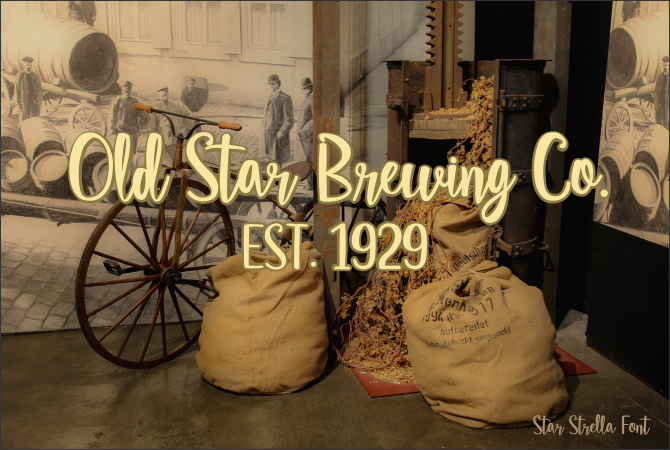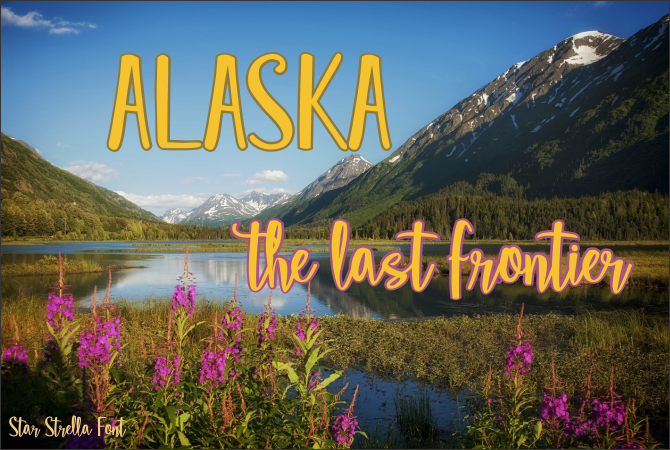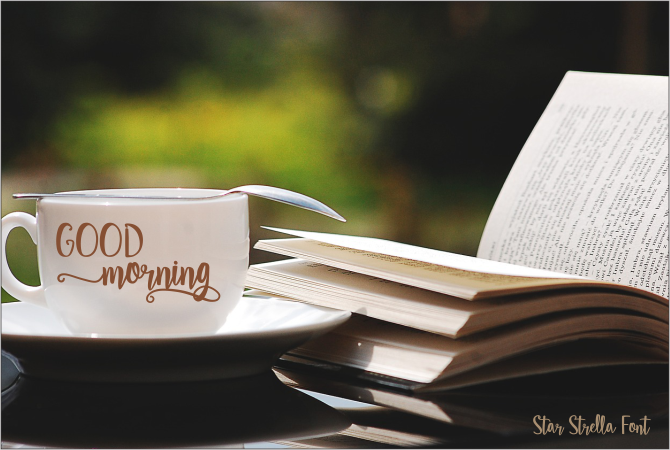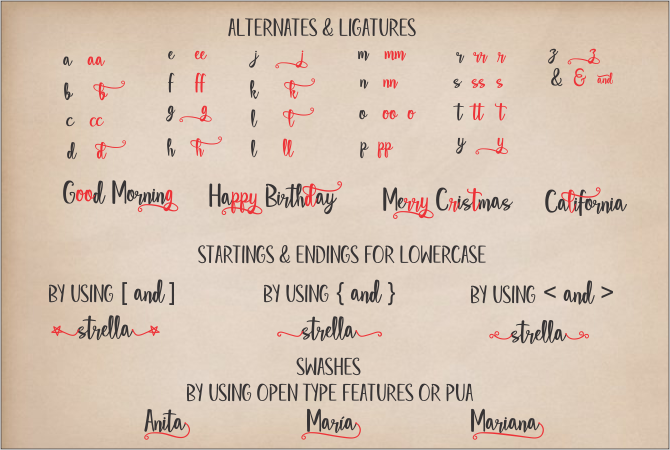
Star Strella Font
About Star Strella Font
Star Strella is a beautiful script that will add a pleasant touch to your designs. This script is stylish and classic, making it appropriate for a wide range of projects.